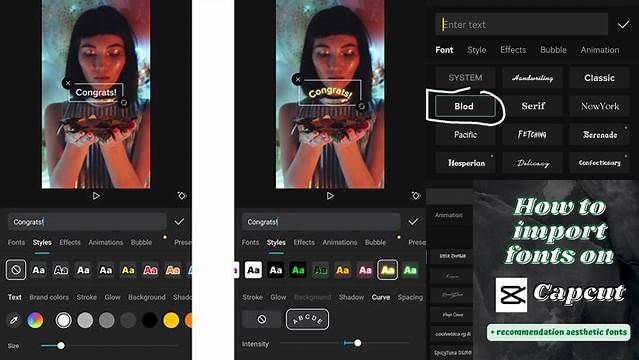
Top Text Fonts For CapCut: Make Your Videos Pop!
Creating engaging videos on CapCut is all about grabbing your audience's attention, and what better way to do that than with stunning text fonts? Choosing the right font can elevate your video from good to great, so let's dive into some of the best text fonts CapCut has to offer and how you can use them to make your content shine. Guys, get ready to unleash your inner typography guru!
1. Understanding the Importance of Font Choice in Video Editing
The font you choose for your videos isn't just about aesthetics; it's about communication. The right font can enhance your message, while the wrong one can confuse or even distract viewers. Think of fonts as the voice of your text – a bold font can convey confidence and power, while a delicate script can evoke elegance and sophistication. When you're editing in CapCut, pay attention to how your font complements your visuals and overall video theme. A clear, readable font is always a good start, but experimenting with different styles can help you find that perfect match. Always prioritize legibility, especially for mobile viewers who might be watching on smaller screens. Don’t be afraid to test out different fonts and see what resonates best with your audience. Remember, your goal is to make your message as impactful and easily digestible as possible, and the right font plays a huge role in achieving that.
2. Best Sans-Serif Fonts for CapCut
Sans-serif fonts are your go-to for a clean, modern look. These fonts, lacking the small decorative strokes (serifs) found in other styles, offer excellent readability, especially in digital formats. When you're looking for something sleek and contemporary for your CapCut projects, sans-serif is where it’s at! Popular choices like Helvetica, Arial, and Open Sans are timeless for a reason. They’re versatile and work well in a variety of contexts. But don’t be afraid to explore some of CapCut’s built-in sans-serif options too! You might find some hidden gems that perfectly match your video's vibe. For example, a bolder sans-serif can be great for titles and headings, grabbing attention right away. A lighter weight sans-serif might be better for body text or captions, ensuring clarity without overwhelming the visuals. Always consider the overall aesthetic you're aiming for – a tech-focused video might benefit from a geometric sans-serif, while a lifestyle vlog could feel more approachable with a softer, rounded option. In short, sans-serif fonts are your reliable workhorses for clear and contemporary video text.
3. Top Serif Fonts to Use in CapCut
Serif fonts, with their classic and elegant appearance, can add a touch of sophistication to your CapCut videos. These fonts are characterized by the small decorative strokes (serifs) at the ends of the letters, giving them a more traditional feel. Think Times New Roman, Garamond, or Georgia – these are the fonts that instantly evoke a sense of history and refinement. When should you use them? Serif fonts work wonders for projects that require a touch of class, such as documentaries, historical videos, or even elegant wedding montages. However, it's crucial to use them judiciously in video editing. Too much serif text on screen, especially in smaller sizes, can appear cluttered and difficult to read. Try using them sparingly, perhaps for titles or brief text overlays, and pair them with a clean sans-serif font for the body text. This creates a visual contrast that’s both pleasing and practical. Experiment with different serif styles within CapCut to find the perfect match for your video's mood. A bold serif can make a strong statement, while a lighter, more delicate serif can add a subtle touch of elegance. In essence, serif fonts are the secret weapon for adding a touch of timeless charm to your CapCut creations.
4. Best Script Fonts for CapCut Video Projects
Script fonts, with their flowing, handwritten style, can infuse personality and charm into your CapCut videos. Imagine elegant calligraphy or a casual, handwritten note – that's the kind of vibe script fonts bring to the table. They're perfect for projects that need a personal touch, like wedding videos, birthday greetings, or lifestyle vlogs. However, script fonts can be tricky to use effectively in video editing. Legibility is key, so avoid overly ornate or intricate scripts that might be difficult to read on screen, especially on smaller devices. Choose scripts that are clear and relatively simple, and use them sparingly. A script font can be stunning for titles or short text overlays, but it's generally not the best choice for long paragraphs of text. Think about how the script font complements your visuals. A romantic script can enhance a love story, while a playful script might be ideal for a children's video. CapCut offers a variety of script fonts, so take the time to explore your options and find one that truly reflects the mood of your project. Pair your script font with a clean, simple sans-serif font for a balanced and professional look. Ultimately, script fonts are your go-to for adding a dash of personality and flair to your CapCut videos.
5. Decorative and Display Fonts in CapCut: When and How to Use Them
Decorative and display fonts are the wildcards of the typography world, offering unique and eye-catching styles that can really make your CapCut videos stand out. Think bold, quirky, or even downright wacky – these fonts are designed to grab attention. But, guys, with great power comes great responsibility! Decorative fonts should be used sparingly and strategically. They're perfect for titles, logos, or short bursts of text where you want to make a strong visual statement. However, they can quickly become overwhelming if used for longer passages of text. When choosing a decorative font, consider your video's overall tone and message. A playful, cartoonish font might be great for a kids' video, but it would look out of place in a serious documentary. Similarly, a bold, futuristic font could be perfect for a sci-fi project, but not so much for a romantic comedy. CapCut offers a wide range of decorative fonts, so experiment and see what resonates with your style. Remember to prioritize legibility, even with decorative fonts. If your text is too hard to read, your message will get lost. Pair your decorative font with a simpler, more readable font for body text to create a balanced and visually appealing design. In short, decorative fonts are the secret ingredient for adding a unique and memorable touch to your CapCut videos, but use them wisely!
6. Pairing Fonts Effectively in CapCut
Font pairing is the art of combining different fonts in a way that's visually harmonious and enhances your message. In CapCut, this means choosing fonts that complement each other and create a cohesive look for your video. The key is to create contrast without clashing. A classic approach is to pair a serif font with a sans-serif font. For example, you might use a bold serif font for your title and a clean sans-serif for the body text. This creates a visual hierarchy that guides the viewer's eye. Another tip is to choose fonts from different font families. A font family is a group of fonts that share a similar design, but come in different weights and styles (e.g., regular, bold, italic). Using different weights from the same family can add subtle variation without disrupting the overall look. When pairing fonts, consider the mood of your video. A serious, professional video might benefit from a classic pairing like Helvetica and Garamond, while a fun, playful video could use a more whimsical combination. Don't be afraid to experiment, but always prioritize legibility. Make sure your font pairings are easy to read on screen, especially on smaller devices. Effective font pairing is the secret to a polished and professional look in your CapCut videos.
7. Font Size and Legibility in CapCut Videos
Font size and legibility are crucial factors in ensuring your message gets across clearly in your CapCut videos. No matter how stylish your font choices, if viewers can't read your text, you're missing the mark! Start by considering the viewing context. Will your video be watched primarily on large screens or mobile devices? Smaller screens require larger font sizes to maintain readability. A good rule of thumb is to test your video on different devices to ensure your text is legible across the board. Pay attention to the font's weight (boldness) as well. A thin, delicate font might look elegant on a poster, but it could disappear on a video with a busy background. Bolding your text or using a heavier font weight can significantly improve legibility. Also, think about the duration of your text on screen. If your text is only displayed for a few seconds, you'll need a larger font size to give viewers enough time to read it. Experiment with different font sizes and preview your video to see what works best. Don't be afraid to go bigger than you think you need to – it's better to err on the side of clarity. In the end, font size and legibility are the cornerstones of effective video communication in CapCut.
8. Text Animation Styles in CapCut and Font Choice
Text animation can add a dynamic flair to your CapCut videos, but the font you choose plays a significant role in how effective these animations look. Certain fonts pair better with certain animation styles, so let's break it down. For simple animations like fades or slides, almost any font can work well. Clean sans-serif fonts often shine in these scenarios, providing a modern and polished look. However, when you start exploring more complex animations, like typewriter effects or bouncing letters, font choice becomes crucial. Bold, sturdy fonts tend to hold up better during these animations, ensuring the text remains legible even as it moves and transforms. Delicate or intricate fonts might get lost in the shuffle, especially during fast-paced animations. Think about the mood you're trying to create with your animation. A playful bouncing animation might call for a fun, casual font, while a dramatic fade-in could pair perfectly with a bold, elegant serif font. Experiment with different font and animation combinations within CapCut to see what resonates with your style. Remember, the goal is to enhance your message, not distract from it. If your text animation is too busy or your font is difficult to read, viewers might miss the point. The right font can make your CapCut text animations truly pop, adding that extra layer of visual interest and engagement.
9. Using Text Templates in CapCut for Consistent Branding
Text templates in CapCut are a game-changer for maintaining consistent branding across your videos. If you're creating content regularly, having a set of pre-designed text styles can save you time and ensure your videos have a professional, cohesive look. Think of text templates as your brand's visual signature. By using the same fonts, colors, and text animations in every video, you create a recognizable style that viewers can instantly associate with your brand. CapCut offers a variety of built-in text templates, but you can also customize them to match your brand's unique aesthetic. Start by choosing a font that reflects your brand's personality – is it modern and sleek, or classic and elegant? Then, select a color palette that aligns with your brand's visual identity. Consistent use of colors in your text overlays can significantly strengthen your brand recognition. Experiment with different text animations to find a style that's both visually appealing and on-brand. A subtle fade-in or slide-up can add a touch of professionalism, while a more dynamic animation might be suitable for a playful brand. Once you've created your ideal text templates, save them within CapCut so you can easily reuse them in future projects. Text templates are your secret weapon for building a strong and consistent brand identity in your CapCut videos.
10. Color and Text: Achieving the Right Contrast in CapCut
Color and text go hand in creating visually appealing and readable CapCut videos. The right color contrast can make your text pop, while the wrong combination can render it illegible. Think of it as a visual balancing act – you want your text to stand out without clashing with the background. A fundamental principle is to use contrasting colors. If your background is dark, opt for light-colored text, and vice versa. This creates a clear visual distinction that makes your text easy to read. CapCut offers a wide range of color options, so experiment with different combinations to find what works best for your video. Consider your video's overall color palette when choosing text colors. You might want to select colors that complement the visuals or create a bold contrast for emphasis. Avoid using colors that are too similar to your background, as this can make your text blend in and become difficult to read. Text shadows and outlines can also be powerful tools for enhancing contrast. A subtle shadow behind your text can help it stand out against a busy background, while a contrasting outline can add definition and visual interest. Remember, legibility is paramount. No matter how stylish your color choices, if your text isn't easy to read, your message will get lost. Mastering color contrast is key to creating visually impactful and effective text in your CapCut videos.
11. Adding Text Shadows and Outlines in CapCut for Better Visibility
Adding text shadows and outlines in CapCut is a simple yet effective technique to significantly improve the visibility of your text, especially against busy or complex backgrounds. Imagine trying to read white text against a bright, cloud-filled sky – it's nearly impossible! Shadows and outlines provide that crucial separation, making your text pop and ensuring your message is crystal clear. Text shadows create a subtle depth effect, lifting the text slightly from the background. This is particularly useful when your text color is similar to the background. A dark shadow behind light text, or vice versa, can make a world of difference. Outlines, on the other hand, add a distinct border around your text, defining its shape and making it stand out. A contrasting outline color can be incredibly effective, especially when dealing with vibrant or patterned backgrounds. CapCut makes it easy to add both shadows and outlines to your text. Experiment with different colors, sizes, and opacity levels to find the perfect balance for your video. A subtle shadow or outline is often more effective than an overly dramatic one. Remember, the goal is to enhance readability, not to distract from the overall visual aesthetic. Text shadows and outlines are your go-to tools for ensuring your text is always clear and legible in your CapCut videos.
12. Kerning and Tracking: Fine-Tuning Your CapCut Text
Kerning and tracking are two typography techniques that allow you to fine-tune the spacing between letters in your CapCut text, enhancing both readability and visual appeal. While they might sound like technical jargon, understanding these concepts can elevate your text design from good to great. Kerning refers to the adjustment of space between individual letters. Some letter combinations naturally appear too close or too far apart, and kerning allows you to manually tweak these spaces for a more balanced look. For example, the space between a capital 'W' and a lowercase 'a' might need tightening, while the gap between two 'L's might need widening. Tracking, on the other hand, adjusts the spacing uniformly across all letters in a word or phrase. This is useful for controlling the overall density of your text. Tight tracking can create a dense, impactful look, while loose tracking can add a sense of airiness and elegance. In CapCut, you might not have explicit kerning controls, but you can often adjust tracking to achieve a similar effect. Pay attention to the overall visual rhythm of your text. Are there any awkward gaps or crowded areas? Experiment with tracking to create a smoother, more even appearance. Kerning and tracking are the subtle details that can make a big difference in the professionalism and readability of your CapCut text.
13. Choosing Fonts That Match Your Video's Theme
Choosing fonts that match your video's theme is crucial for creating a cohesive and impactful visual experience in CapCut. Your font should not only be legible but also complement the overall mood and message of your video. Think of your font as a visual voice that speaks to your audience. A playful, cartoonish font might be perfect for a children's video, but it would feel completely out of place in a serious documentary. Conversely, a formal, elegant serif font could enhance the sophistication of a wedding video, but it might seem stuffy in a fast-paced vlog. Start by identifying the core theme or emotion of your video. Is it fun and lighthearted, serious and informative, or romantic and sentimental? Once you've nailed down the mood, you can start exploring fonts that align with it. Consider the style of your visuals as well. A video with a modern, minimalist aesthetic might benefit from a clean sans-serif font, while a video with a vintage vibe could pair beautifully with a classic serif or script font. Don't be afraid to experiment with different font pairings, but always prioritize legibility. The right font can amplify your video's message and create a lasting impression on your viewers.
14. Localizing Fonts: Using the Best Fonts for Different Languages in CapCut
Localizing fonts is a crucial consideration when creating CapCut videos for international audiences. What looks great in English might not translate well to other languages, as different writing systems have unique characteristics and require specific font designs. Think about it – a flowing script font might be beautiful, but it could be completely illegible in a language like Chinese or Japanese, which use logographic characters. When creating multilingual videos, it's essential to choose fonts that support the character sets of your target languages. CapCut offers a range of fonts that support various languages, but it's worth doing some research to find the best options for your specific needs. Consider the cultural context as well. Some fonts have strong cultural associations, and using the wrong font could send the wrong message or even be offensive. For example, a font that evokes a Western aesthetic might not resonate with an audience in Asia. Pay attention to readability in different languages. Some languages have longer words or phrases, so you might need to adjust font sizes and spacing to ensure your text remains clear and legible. Localizing your fonts is a key step in creating inclusive and effective CapCut videos for a global audience.
15. Using Font Styles (Bold, Italic, Underline) Effectively in CapCut
Using font styles like bold, italic, and underline effectively in CapCut can add emphasis and structure to your text, guiding your viewers' eyes and highlighting key information. However, like any design element, these styles should be used judiciously to avoid visual clutter. Bold text is your go-to for drawing attention to important words or phrases. It instantly creates a sense of emphasis and can be particularly useful for headings, subheadings, or keywords. Italic text, on the other hand, often conveys a sense of elegance or sophistication. It can also be used to indicate quotes, book titles, or foreign words. However, be cautious about overusing italics, as they can sometimes be harder to read on screen, especially in smaller font sizes. Underlining is generally best avoided in video text. It's a holdover from the days of typewriters and can make your text look cluttered and unprofessional. Instead of underlining, consider using bold or italic to emphasize your text. When using font styles, consistency is key. Choose a style for headings, another for subheadings, and a third for body text, and stick to it throughout your video. This creates a clear visual hierarchy that makes your content easier to digest. Font styles are powerful tools for adding emphasis and structure to your CapCut text, but use them strategically.
16. Creating Custom Text Styles in CapCut
Creating custom text styles in CapCut allows you to develop a unique visual identity for your videos and ensure consistency across all your projects. Instead of starting from scratch each time, you can save your favorite font combinations, colors, sizes, and animations as custom styles and apply them with a single click. Think of custom text styles as your personal typography toolkit. They save you time and effort while ensuring your videos have a polished and professional look. Start by experimenting with different font pairings, colors, and text effects within CapCut. Once you've found a style you love, you can save it as a custom preset. Give your custom style a descriptive name so you can easily identify it later. For example, you might create styles named "Bold Title," "Elegant Subtitle," or "Modern Caption." When creating custom styles, consider your brand's visual identity. Choose fonts and colors that align with your brand's overall aesthetic. This helps create a consistent look and feel across all your content. Use custom styles to create a visual hierarchy in your text. You might have one style for headings, another for subheadings, and a third for body text. This makes your content easier to read and understand. Custom text styles are your secret weapon for creating visually consistent and professional CapCut videos.
17. Best Fonts for Titles and Headings in CapCut
Choosing the best fonts for titles and headings in CapCut is crucial for grabbing your viewers' attention and setting the tone for your video. Your titles and headings are the first thing people see, so they need to be visually impactful and easy to read. Think of your title font as the headline of a newspaper – it needs to be bold, clear, and attention-grabbing. A strong sans-serif font, like Montserrat or Bebas Neue, can be a great choice for modern and dynamic videos. For a more classic or elegant feel, consider a serif font like Playfair Display or Lora. When choosing a heading font, think about the overall style of your video. A playful video might benefit from a quirky or hand-drawn font, while a serious video calls for a more professional and understated option. Bold fonts are generally a good choice for titles and headings, as they stand out well on screen. However, make sure your font is still legible, even in larger sizes. Pay attention to the spacing between letters and lines. Too much or too little spacing can make your text difficult to read. Experiment with different font sizes and weights to find the perfect balance. The right fonts for titles and headings can make your CapCut videos stand out and capture your audience's attention.
18. Ideal Fonts for Subtitles and Captions in CapCut
Selecting the ideal fonts for subtitles and captions in CapCut is paramount for ensuring accessibility and viewer engagement. Subtitles and captions make your videos understandable to a wider audience, including those who are deaf or hard of hearing, and those watching in noisy environments. However, if your font is difficult to read, your efforts will be in vain. Legibility is the top priority when choosing a subtitle or caption font. Clean, simple sans-serif fonts, like Arial or Open Sans, are generally the best choice. These fonts are easy to read on screen, even in smaller sizes. Avoid using overly decorative or script fonts, as they can be difficult to decipher quickly. Consider the font size carefully. Your subtitles and captions need to be large enough to read comfortably, but not so large that they obstruct the visuals. Test your font size on different devices to ensure it's legible across the board. Color contrast is also crucial. Your subtitles and captions should stand out clearly against the background. White text with a black outline is a classic and effective combination. Pay attention to the timing and placement of your subtitles and captions. They should appear on screen long enough for viewers to read them comfortably, and they should be positioned in a way that doesn't obscure important visual elements. Choosing the right fonts for subtitles and captions is essential for making your CapCut videos accessible and engaging for all viewers.
19. Fonts That Convey Professionalism in CapCut Videos
Choosing fonts that convey professionalism in your CapCut videos is crucial for building credibility and trust with your audience. The fonts you use can communicate a lot about your brand or message, so it's important to select wisely. Think of professional fonts as the visual equivalent of a business suit – they project competence and reliability. Clean, classic sans-serif fonts are often the best choice for conveying professionalism. Fonts like Helvetica, Arial, and Open Sans are timeless and versatile, and they work well in a variety of contexts. Serif fonts can also convey professionalism, but they should be used carefully. Fonts like Times New Roman and Garamond can add a touch of elegance, but they can also feel a bit dated if overused. Avoid using overly decorative or script fonts in professional videos. These fonts can be distracting and difficult to read, and they may not project the image you're trying to convey. Consider the overall visual style of your video. Your font should complement your visuals and reinforce your message. A clean, minimalist video might pair well with a simple sans-serif font, while a more traditional video could benefit from a classic serif font. Pay attention to font size and spacing. Your text should be easy to read on screen, even in smaller sizes. Avoid using excessive bolding or italics, as this can make your text look cluttered and unprofessional. The right fonts can help you create CapCut videos that project professionalism, credibility, and trust.
20. Fonts for a Modern and Trendy Look in CapCut
To achieve a modern and trendy look in your CapCut videos, your font choice is key. The right font can instantly elevate your video's style, making it feel current and visually appealing. In the world of typography, modern fonts often embrace simplicity and clean lines. Sans-serif fonts are your best friend here, offering a sleek and contemporary feel. Think of fonts like Montserrat, Raleway, or Poppins – these are the go-to choices for a modern aesthetic. They're versatile, highly readable, and exude a sense of sophistication. Bold and geometric sans-serif fonts are particularly trendy right now. They make a strong visual statement, perfect for titles and headings that need to pop. However, balance is crucial. Too much boldness can feel overwhelming, so pair these fonts with lighter weights for body text or captions. Experiment with different font pairings to create visual interest. A bold sans-serif for headings combined with a lighter, more delicate sans-serif for the body can strike the perfect balance between eye-catching and readable. Consider using all-caps for short titles or keywords. This can add a touch of modernity and emphasis, but avoid using all-caps for longer passages of text, as it can be harder to read. Embrace clean, contemporary fonts to give your CapCut videos a modern and trendy edge.
21. Vintage and Retro Font Styles for CapCut Videos
For CapCut videos aiming for a vintage or retro vibe, your font choice is a powerful tool to transport your viewers back in time. The right font can evoke nostalgia and create a unique atmosphere, making your video stand out. Think about the era you're trying to capture. The 1920s have a different typographic feel than the 1980s, for example. For a classic, old-Hollywood feel, explore Art Deco-inspired fonts with geometric shapes and elegant curves. Fonts like Bebas Neue or Montserrat (used in specific styles) can work well here. Mid-century modern styles often feature clean sans-serif fonts with a slightly rounded feel. Fonts like Futura or Century Gothic can capture this aesthetic beautifully. If you're going for a 1970s or 80s vibe, consider bolder, more playful fonts with a retro flair. Script fonts with a hand-drawn feel or display fonts with a unique shape can add character. Experiment with color palettes that match the era you're evoking. Warm, muted tones can enhance a vintage feel, while bright, bold colors can capture the energy of the 80s. Don't be afraid to mix and match fonts, but ensure they complement each other. A bold retro font for the title paired with a simpler sans-serif for the body can create a balanced look. Vintage and retro fonts can add a unique charm to your CapCut videos, transporting your viewers to another era.
22. Using Hand-Drawn and Calligraphy Fonts in CapCut
Hand-drawn and calligraphy fonts can inject a personal and artistic touch into your CapCut videos, making them feel more unique and engaging. These fonts mimic the look of handwriting or calligraphy, adding a human element that's often missing in digital content. Think of hand-drawn fonts as the visual equivalent of a handwritten note – they convey warmth, authenticity, and a personal connection. Calligraphy fonts, on the other hand, evoke elegance, sophistication, and a touch of artistry. When using these fonts, legibility is key. Avoid overly ornate or intricate styles that are difficult to read on screen, especially in smaller sizes. Choose fonts that are clear and relatively simple, even with their hand-drawn or calligraphic flair. Hand-drawn fonts work well for titles, subtitles, or short bursts of text where you want to add a playful or informal touch. They're perfect for vlogs, lifestyle videos, or content that aims for a casual, approachable feel. Calligraphy fonts are ideal for projects that require a touch of elegance or sophistication, such as wedding videos, invitations, or historical documentaries. Use these fonts sparingly, as they can quickly become overwhelming if overused. Pair them with a clean, simple sans-serif font for the body text to create a balanced look. Hand-drawn and calligraphy fonts are your secret weapons for adding a personal and artistic flair to your CapCut videos.
23. Fonts That Are Easy to Read on Mobile Devices in CapCut
Choosing fonts that are easy to read on mobile devices is crucial for ensuring your CapCut videos are accessible and engaging to the majority of your audience. With more and more people watching videos on their smartphones and tablets, your text needs to be legible even on smaller screens. Think of mobile readability as a primary consideration, not an afterthought. A stunning font that's difficult to read on a phone is ultimately ineffective. Clean, simple sans-serif fonts are generally the best choice for mobile viewing. These fonts are designed for clarity and legibility, even in small sizes. Fonts like Open Sans, Roboto, and Lato are excellent options. Avoid using overly decorative or intricate fonts, as these can become blurry and difficult to decipher on smaller screens. Bold fonts are often easier to read on mobile devices, as they stand out more clearly against the background. However, avoid using all-caps for longer passages of text, as this can make it harder to read. Pay attention to font size. Your text needs to be large enough to read comfortably on a phone screen, but not so large that it obstructs the visuals. Test your video on different mobile devices to ensure your text is legible across the board. Consider the contrast between your text color and background. High contrast is essential for mobile readability. White text on a dark background or dark text on a light background are classic and effective combinations. Prioritize mobile readability when choosing fonts for your CapCut videos, and your audience will thank you.
24. Using Free Fonts in CapCut: Resources and Options
Using free fonts in CapCut is a great way to add variety and personality to your videos without breaking the bank. There are tons of resources online offering high-quality fonts that you can download and use in your projects. Think of free fonts as your creative playground – they allow you to experiment with different styles and find the perfect look for your videos without any financial commitment. However, it's important to be aware of licensing restrictions when using free fonts. Most free fonts come with a license that specifies how you can use them. Some licenses allow commercial use (meaning you can use the font in videos that you monetize), while others are for personal use only. Always check the license before using a font to avoid copyright issues. Several websites offer a wide selection of free fonts, including Google Fonts, DaFont, and Font Squirrel. Google Fonts is a particularly valuable resource, as it offers a vast library of open-source fonts that are free for both personal and commercial use. When downloading fonts, make sure you're getting them from a reputable source to avoid malware or other security risks. Stick to well-known font websites and avoid downloading fonts from suspicious-looking sites. CapCut allows you to import custom fonts, so you can easily use your downloaded fonts in your videos. Simply add the font files to your CapCut font library, and they'll be available for use in your projects. Free fonts are a fantastic resource for adding unique typography to your CapCut videos, just be sure to check the licensing and download from reputable sources.
25. Premium Font Options for CapCut: When to Invest
Premium font options can significantly elevate the visual quality of your CapCut videos, offering a level of sophistication and uniqueness that free fonts sometimes can't match. Investing in premium fonts can be a worthwhile decision, especially if you're creating content for a professional brand or aiming for a polished, high-end look. Think of premium fonts as the designer clothing of the typography world – they often feature meticulous craftsmanship, unique designs, and extensive character sets. Premium fonts are created by professional type designers and foundries, ensuring high quality and attention to detail. They often include multiple weights, styles, and alternate characters, giving you greater flexibility and control over your text design. When should you consider investing in premium fonts? If you're creating content for a business or brand, premium fonts can help you establish a unique visual identity and stand out from the competition. They're also a good investment if you're creating videos for clients or projects that require a professional touch. Premium font licenses often come with broader usage rights than free fonts, allowing you to use them in a wider range of projects without worrying about copyright restrictions. Several websites offer premium fonts, including MyFonts, Adobe Fonts, and Creative Market. Adobe Fonts is a particularly good option if you're an Adobe Creative Cloud subscriber, as it gives you access to a vast library of premium fonts as part of your subscription. Premium fonts can be a valuable investment for CapCut video creators who are serious about typography and visual branding.
26. Font Licensing and Copyright for CapCut Videos
Understanding font licensing and copyright is crucial for ensuring you're using fonts legally in your CapCut videos. Fonts are intellectual property, and using them without the proper license can lead to legal issues. Think of font licenses as the terms of service for your fonts – they outline how you're allowed to use the font, including whether it's for personal or commercial projects. Free fonts often come with a specific license that dictates how you can use them. Some licenses allow commercial use, while others restrict usage to personal projects. Always check the license before using a free font in a CapCut video that you plan to monetize. Premium fonts typically have more extensive licenses that allow for commercial use, but it's still important to read the terms and conditions. Some premium licenses may have restrictions on embedding fonts in videos or using them in certain types of projects. Using a font without a proper license is a copyright infringement, which can result in legal penalties. If you're unsure about the licensing terms for a font, it's always best to err on the side of caution and contact the font designer or foundry for clarification. When in doubt, choose fonts with clear and permissive licenses, such as those offered by Google Fonts. This ensures you can use the fonts freely in your CapCut videos without worrying about copyright issues. Font licensing and copyright are essential considerations for all CapCut video creators, ensuring you're using fonts legally and ethically.
27. Text Effects in CapCut: Neon, Glitch, and More
Text effects in CapCut, such as neon and glitch, can add a visually striking and dynamic flair to your videos, making your text pop and grabbing your audience's attention. These effects can transform a simple text overlay into a focal point, adding personality and style to your content. Think of text effects as the visual seasoning for your typography – they enhance the flavor and make it more memorable. Neon effects create a glowing, vibrant outline around your text, giving it a futuristic and energetic feel. This effect is perfect for titles, headings, or short bursts of text that you want to emphasize. Glitch effects, on the other hand, create a distorted, fragmented look, mimicking the visual glitches of old technology. This effect is ideal for adding a sense of edginess or mystery to your videos. CapCut offers a variety of text effects, including shadows, outlines, glows, and 3D effects. Experiment with different combinations to find the perfect look for your video. When using text effects, less is often more. Overusing effects can make your text look cluttered and distracting. Choose one or two effects that complement your font and video style, and use them sparingly. Pay attention to legibility. Make sure your text is still easy to read, even with effects applied. Avoid using overly ornate effects that obscure the letters or make the text blurry. Text effects are a powerful tool for adding visual interest to your CapCut videos, but use them strategically to enhance, not distract from, your message.
28. Combining Images and Text with the Best CapCut Fonts
Combining images and text effectively is a crucial skill for creating visually compelling CapCut videos. The right font can harmonize with your visuals, enhancing the overall message and aesthetic. Think of your text as a visual partner to your images – they should work together seamlessly to tell a story. When choosing fonts to pair with images, consider the overall tone and style of your video. A clean, modern sans-serif font might be perfect for a sleek product demo, while a handwritten script font could add a personal touch to a travel vlog. Pay attention to the contrast between your text and the background. Your text needs to be legible against your images, so choose a font color that stands out. White or black text with a subtle shadow or outline is often a safe and effective choice. Position your text strategically within the frame. Avoid placing text over busy or distracting areas of your images. Leave enough white space around your text to give it room to breathe. Consider using text to add context or tell a story about your images. Captions, titles, and short text overlays can enhance the narrative and keep your viewers engaged. Experiment with different font sizes and weights to create a visual hierarchy. Use larger, bolder fonts for titles and headings, and smaller, lighter fonts for body text or captions. Combining images and text effectively requires careful font choices and strategic placement, creating a visual synergy that elevates your CapCut videos.
29. Font Updates and New Releases in CapCut
Staying updated on font updates and new releases in CapCut is a great way to expand your typographic toolkit and discover fresh styles for your videos. CapCut regularly adds new fonts to its library, giving you access to a wider range of options and keeping your designs current. Think of font updates as a regular infusion of creativity – they bring new possibilities to your videos and help you stay ahead of the curve. Keep an eye on CapCut's announcements and social media channels for news about font updates and releases. These platforms are often the first to share information about new features and additions to the app. Explore CapCut's font library regularly to see what's new. The app typically organizes fonts by category, making it easy to browse different styles and discover hidden gems. Experiment with new fonts in your projects. Don't be afraid to try something different and see how it enhances your videos. New fonts can inspire new design ideas and help you create a unique visual style. Consider using font updates as an opportunity to refresh your brand's typography. A new font can give your videos a modern and updated look, keeping your content fresh and engaging. Font updates and new releases in CapCut are a valuable resource for video creators who want to stay current with typographic trends and expand their creative possibilities.
30. Best Practices for Text Design in CapCut: A Summary
To wrap things up, let's recap the best practices for text design in CapCut, ensuring your videos are visually appealing, engaging, and easy to understand. Think of these practices as your typography checklist, guiding you to create text that enhances your message and captivates your audience. Legibility is paramount. Choose fonts that are clear and easy to read, especially on mobile devices. Avoid overly decorative or intricate fonts that can become blurry or difficult to decipher. Contrast is key. Ensure your text stands out clearly against the background by choosing colors that provide ample contrast. White or black text with a shadow or outline is a classic and effective combination. Use font styles (bold, italic) strategically to add emphasis and structure to your text. However, avoid overusing these styles, as they can create visual clutter. Pair fonts wisely. Combine different font styles to create visual interest, but ensure they complement each other. A classic pairing is a bold sans-serif for titles and a lighter sans-serif for body text. Consider your video's theme and message when choosing fonts. Your typography should align with the overall tone and style of your content. Use text effects sparingly. Text effects can add flair, but they can also distract from your message if overused. Choose one or two effects that complement your font and video style. Stay consistent with your text design. Use the same fonts, colors, and styles throughout your video to create a cohesive look. Understand font licensing and copyright. Ensure you're using fonts legally by checking the license terms and conditions. By following these best practices, you can create text designs that elevate your CapCut videos and leave a lasting impression on your viewers. Mastering these text design principles will transform your CapCut videos from good to great!